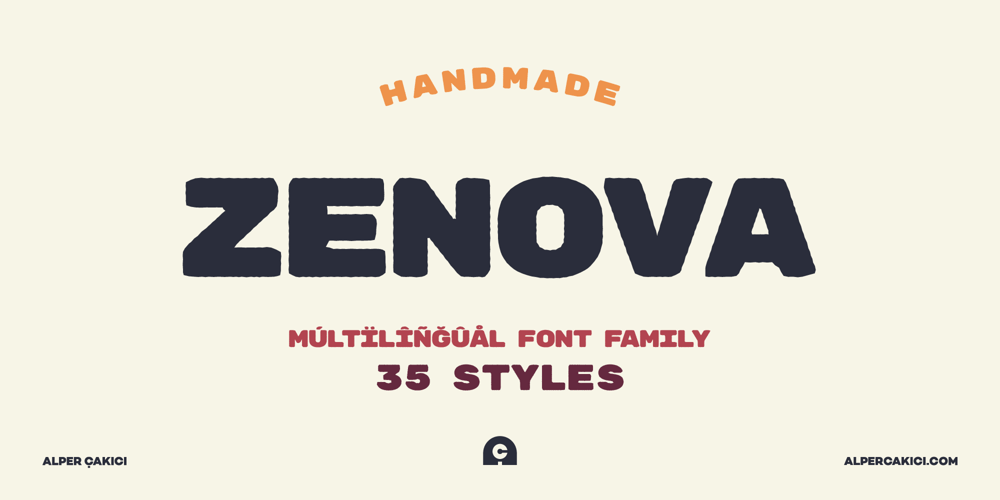
Zenova Font Family was designed by Alper Çakıcı and published by Umka Type. Zenova contains 35 styles and family package options. Zenova is a modern, versatile font with excellent kerning, making it ideal for both digital and print use. It features full support for the Cyrillic language, allowing for seamless multilingual communication. Zenova’s unique design combines classic proportions with a contemporary feel, making it stand out from other same categories fonts.Support for 97 Languages:Belarusian Bosnian Bulgarian Chechen Macedonian Russian Serbian Ukrainian Afrikaans Albanian Asu Basque Bemba Bena Breton Catalan Chiga Cornish Croatian Czech Danish Dutch Embu English Esperanto Estonian Faroese Filipino Finnish French Friulian Galician Ganda Gusii Hungarian Icelandic Inari Sami Indonesian Irish Italian Jola-Fonyi Kabuverdianu Kalenjin Kamba Kikuyu Kinyarwanda Lithuanian Lower Sorbian Luo Luxembourgish Luyia Machame Makhuwa-Meetto Makonde Malagasy Maltese Manx Meru Morisyen Northern Sami North Ndebele Norwegian Bokmål Norwegian Nynorsk Nyankole Oromo Polish Portuguese Quechua Romansh Rombo Rundi Rwa Samburu Sango Sangu Scottish Gaelic Sena Serbian Shambala Shona Slovak Soga Somali Spanish Swahili Swedish Swiss German Taita Teso Upper Sorbian Uzbek (Latin) Volapük Vunjo Walser Welsh Western Frisian Zulu